Type drawing offices can broadly be identified as internal departments that operated within type foundries or type manufacturing companies. Their main role was to produce the letter drawings and related data necessary to manufacture typefaces, either in metal, phototypesetting or digital format. Our research suggests that a number of type manufacturers in Europe (such as Deberny & Peignot in France, Simoncini in Italy, Monotype and Linotype in the United Kingdom, Berthold in Germany), and in all likelihood in the USA, employed women who actively contributed to the design, development, and production of many typefaces throughout the twentieth century. Such contributions have proved difficult to document, as many of these workers entered the type industry only for a few years before moving on, either to have a family or to take on other (often non-type-related) employment.
At Monotype and Linotype, type drawing office staff would adapt a designer’s original drawings to a format suitable for the industrial production of matrices, or would convert existing typefaces to either hot metal or, by the second half of the twentieth century, phototypesetting or digital type technologies. Employees also expanded character sets (to include punctuation, accented characters, small caps, etc.) and extended the design of typefaces to include variants (such as bold, italic, condensed, etc.) as well as additional point sizes. The core of the work carried out by these departments thus involved turning an original type design idea into a fully working typeface, often in a range of styles and sizes, through an essentially iterative process.
These tasks were not confined to Latin script, as Monotype and Linotype produced a number of prominent typefaces for the West Asian, South Asian, and Southeast Asian markets.
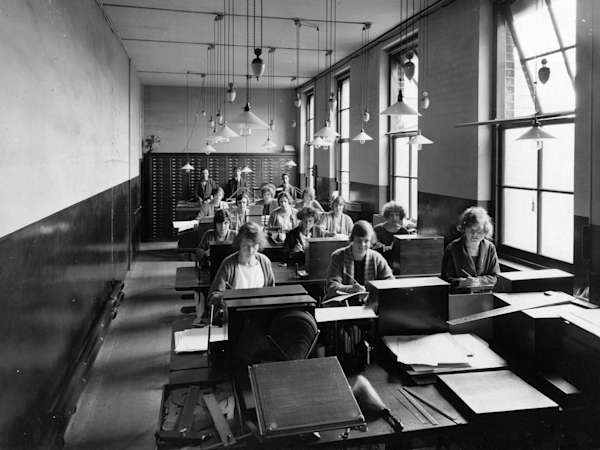
A view of the Monotype Type Drawing Office in Salfords, UK, c. 1928. © Monotype archives
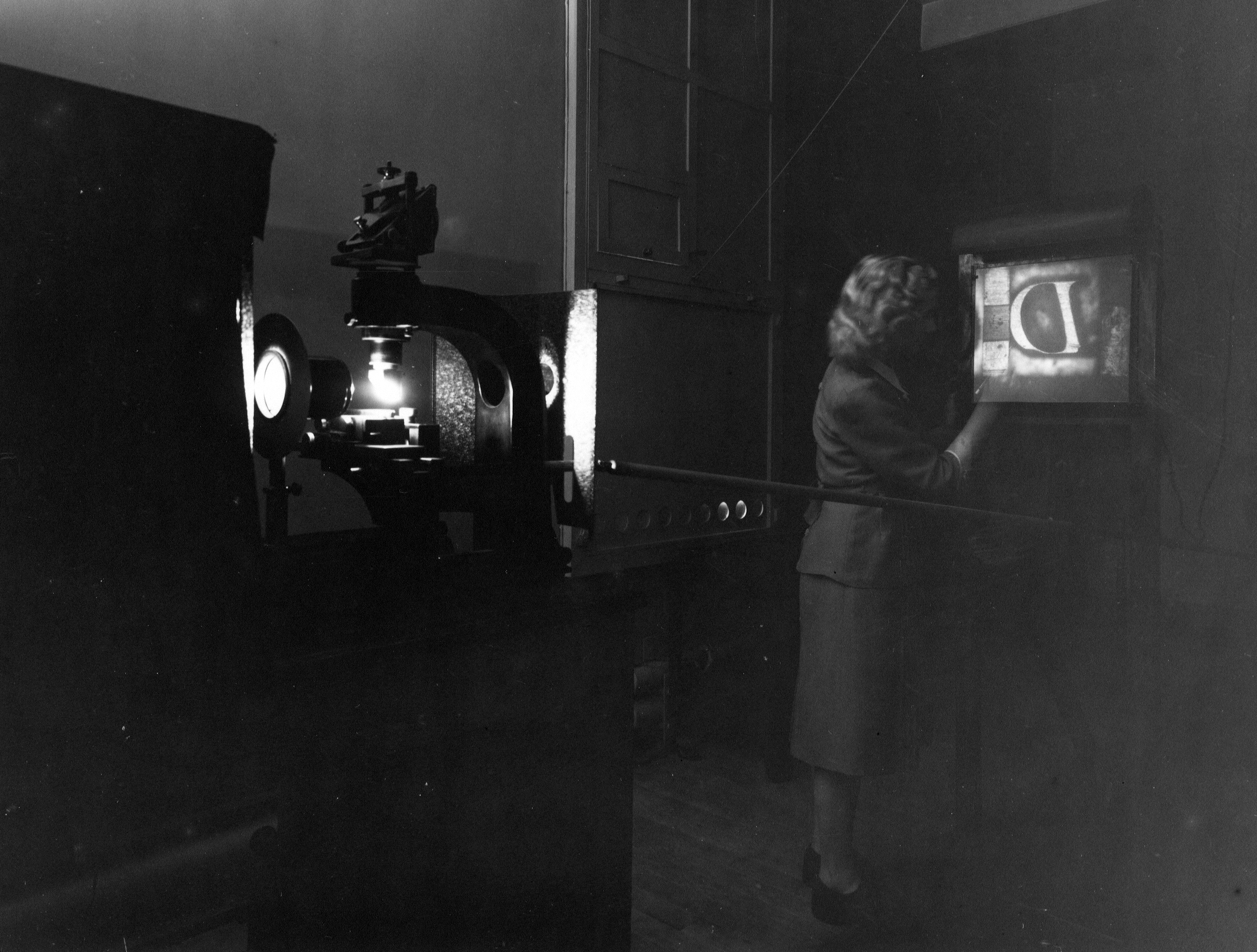
An employee of the Monotype Type Drawing Office in Salfords, UK, reproducing a capital D from the enlarged projection of a piece of metal type
View of the drawing office of the Simoncini Type Foundry in Bologna, Italy, in the early 1960s. Courtesy Antonio Cavedoni
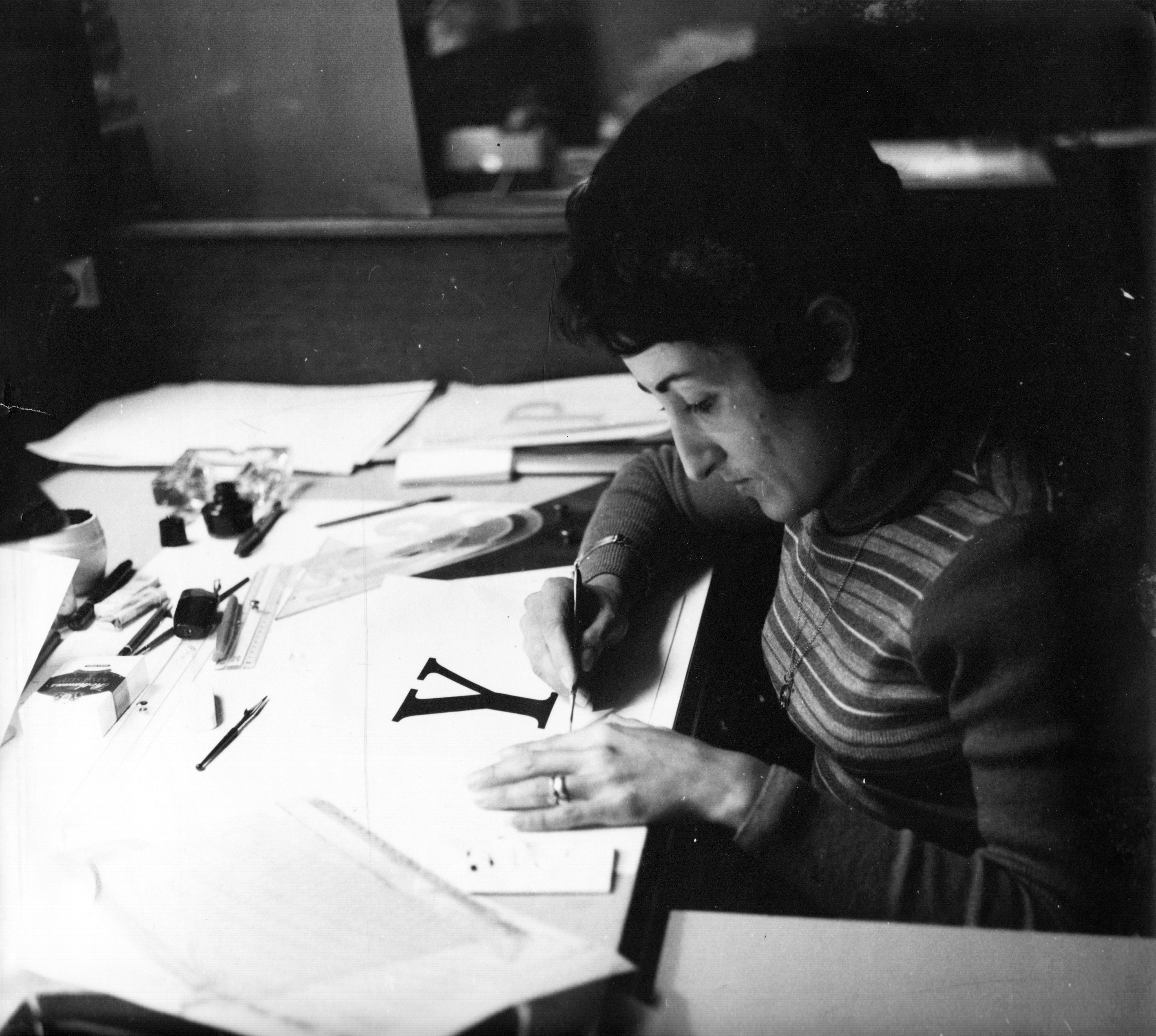
IPC employee Annette Celso-Blanchard filling in a drawing with black ink, Paris, early 1970s. Courtesy Musée de l'imprimerie & de la communication graphique
An employee of the German type manufacturing company Berthold completing a letter drawing for type production, early 1980s